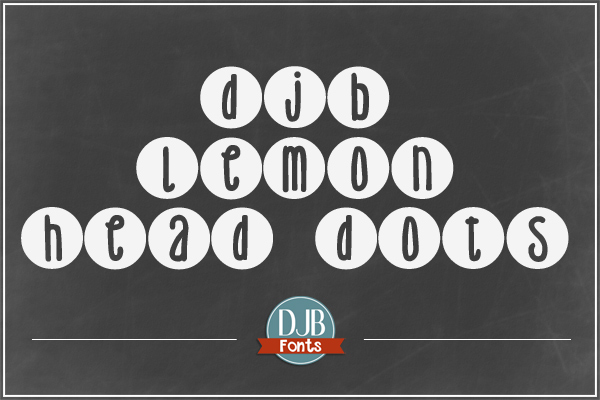
DJB Lemon Head Dots Font
DJB Lemon Head Dots - a cute round font perfect for just about any application! Contains single case alpha, numbers, punctuation and European language characters. It's free for personal use, and a commercial license is available @ darcybaldiwn.com
DJB Lemon Head Dots – a cute round font perfect for just about any application!